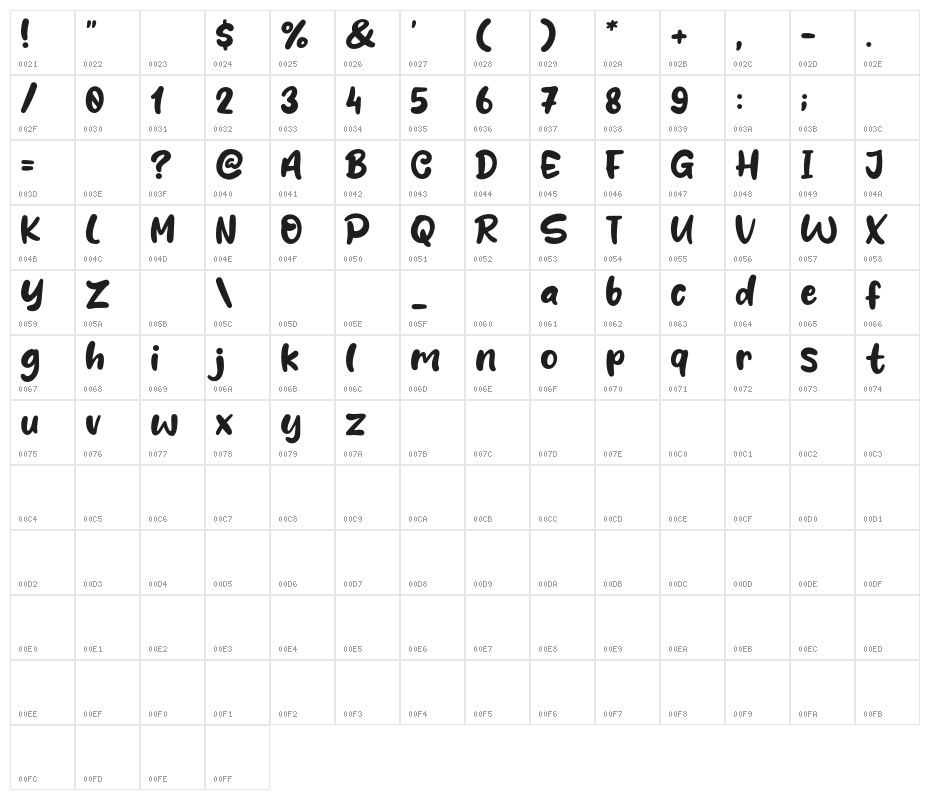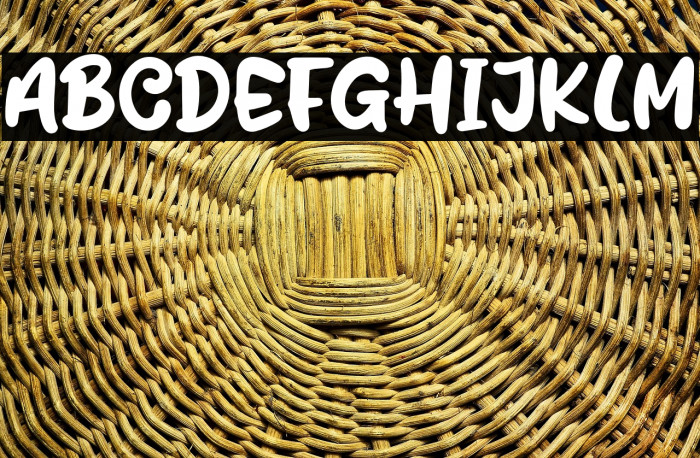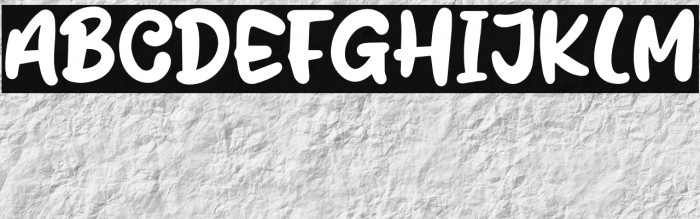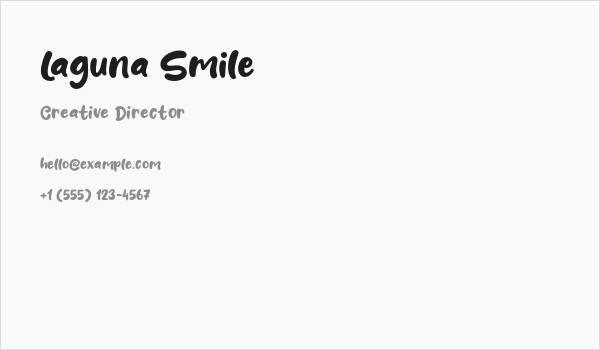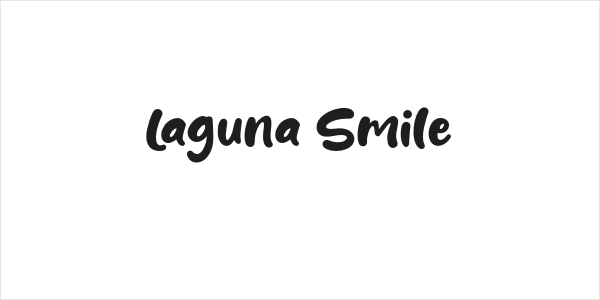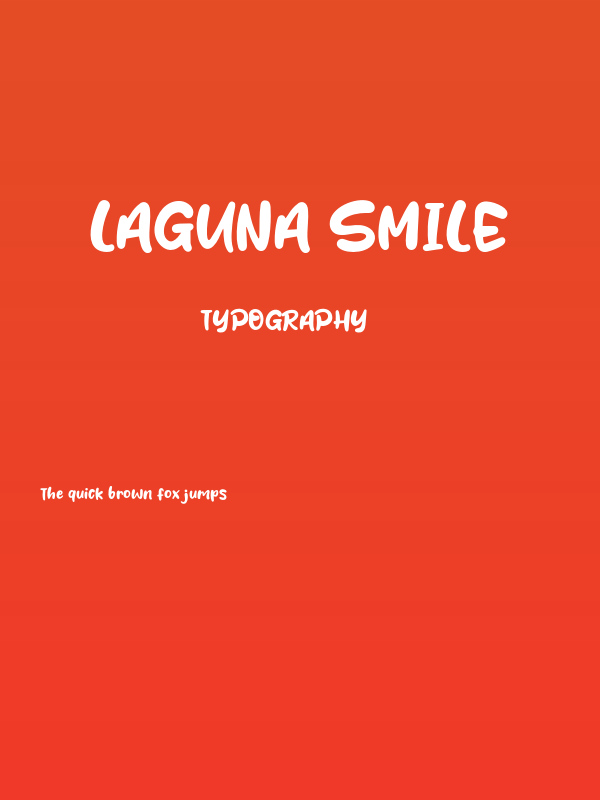
Laguna Smile Font
Laguna Smile Description
This playful and bold font features a handwritten style with thick, rounded strokes that give it a friendly and approachable appearance. The characters are slightly irregular, adding to its charm and making it ideal for casual and fun designs. The uppercase and lowercase letters maintain a consistent weight, while the numerals and special characters complement the overall style with their bold and rounded forms. The font's design is reminiscent of a cheerful, hand-drawn aesthetic, making it suitable for projects that require a personal touch.
| Proposed Projects | Ideal for children's books, greeting cards, playful branding, and social media graphics. |